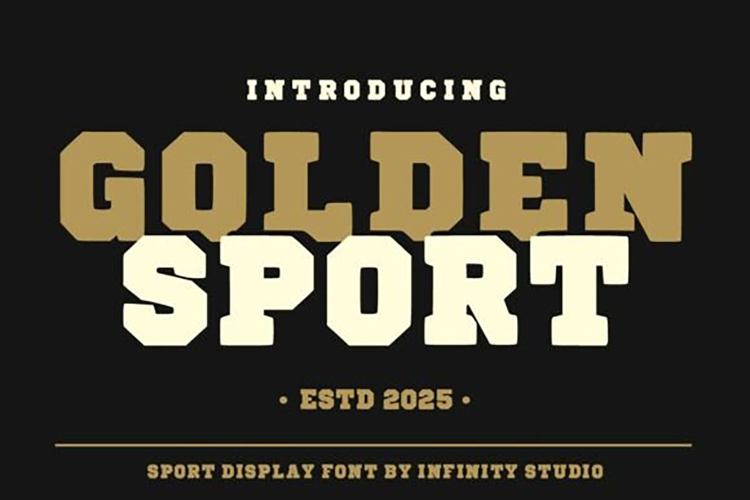
Golden Sport
Golden Sport is a sport college font that is made for any professional project branding, such as poster, branding, logo brand, promotions, product packaging, and more. Every letter has a bold vintage design
Golden Sport